About Dan Reynolds
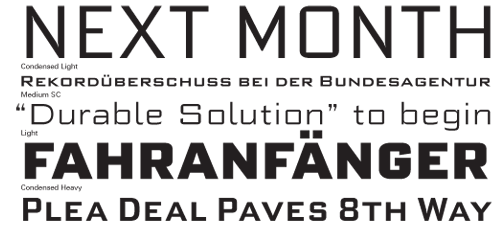
Born an American, Dan Reynolds is a Font Engineer & Typographic Specialist at Linotype GmbH and an occasional educator. During his first visit to Mainz, Dan decided to become a type designer; after completing a BFA in Graphic Design at RISD, he moved to Europe for good, and has been working with letters ever since. With four other students from the HfG Offenbach, he co-founded the Offenbach Typostammtisch in 2004. Dan holds an MA in Typeface Design with distinction from the English University of Reading, where he was part of the MATD class of 2008. Additionally, Dan is a moderator at Typophile, a contributor to the German-language typography magazine Slanted, and a member of the ATypI, the International Gutenberg-Gesellschaft in Mainz e.V., and the Verein der Freunde und Förderer des Fachbereichs Gestaltung der Hochschule Darmstadt e.V. He currently lives in Berlin.
Published Typefaces
Mountain
Four-font revival of the old Offenbach Roos & Junge Teutonia typeface; Volcano-Type Foundry, 2006
Morris Sans
Revival and extension of a popular Morris Fuller Benton display typeface for Linotype GmbH, 2007
Three weights, each with two widths; all fonts in OpenType format with small caps, oldstyle figures, etc.
Malabar
New serif typeface for extensive text; designed at the University of Reading in 2008 and released by Linotype GmbH, 2009
Three weights, each with an Italic; all fonts in OpenType format.